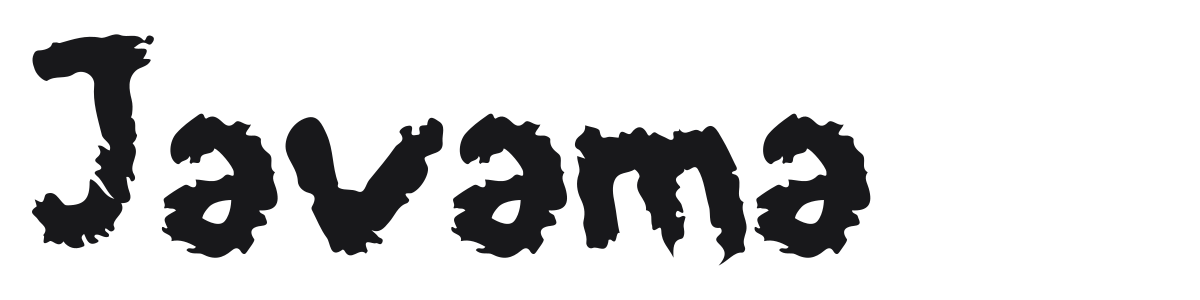
Javama
by Shiddiq Art
Javama is a boldly eroded display font where every character appears eaten away by decay, fire, or corrosion. The thick base forms are almost entirely consumed by ragged organic texture, making each glyph feel uniquely damaged. Strong choice for horror, metal, or underground aesthetics at large sizes.